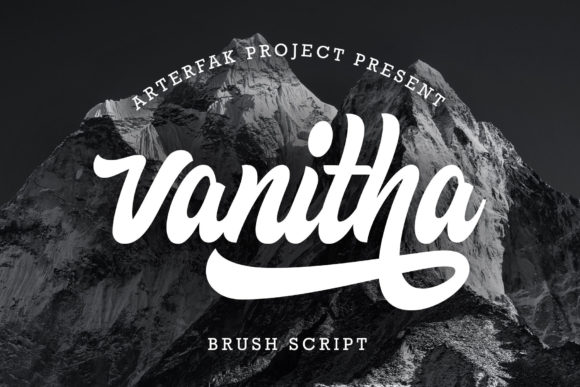
Immerse yourself in the enchanting world of Vanitha, a retro-styled script font that exudes grace and timeless charm. Crafted with meticulous precision by the skilled artisans at Arterfak Project, Vanitha captures the essence of vintage glamour, beckoning you to create designs that captivate and inspire.
Journey back to a bygone era with Vanitha's elegant curves and alluring swashes. Its PUA encoding unlocks the gateway to a realm of creative possibilities, where you can effortlessly access all glyphs and adorn your designs with a touch of exquisite flair.
Picture the alluring glow of a handcrafted soap label, adorned with Vanitha's flowing script. Its soap-inspired charm will enchant customers, drawing them into a world of luxurious bathing rituals. Imagine the captivating allure of wedding invitations, etched with Vanitha's delicate strokes, promising a celebration filled with romance and timeless memories.
Vanitha's versatility extends beyond the realm of physical products. Enchant your digital presence with social media posts that radiate sophistication and style. Craft eye-catching logos that exude an air of timeless elegance. Unleash your creativity with Vanitha, the font that transforms ordinary designs into extraordinary works of art.
Embrace the allure of Vanitha today and embark on a journey of design excellence. Let its captivating strokes ignite your imagination and elevate your creations to new heights of sophistication and beauty. Experience the magic of Vanitha and discover the transformative power of a truly remarkable font.